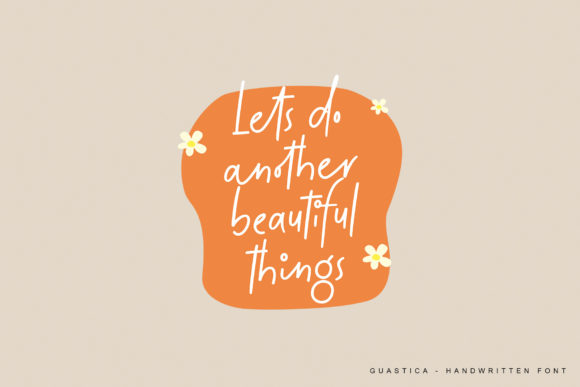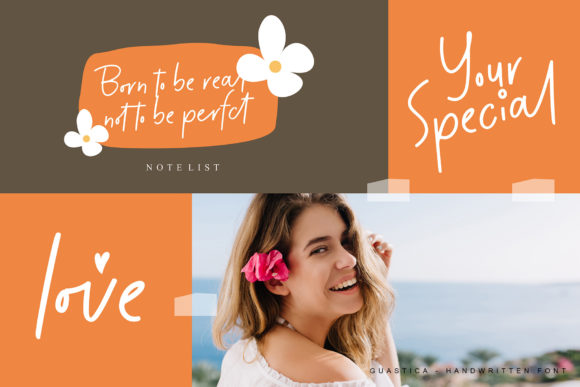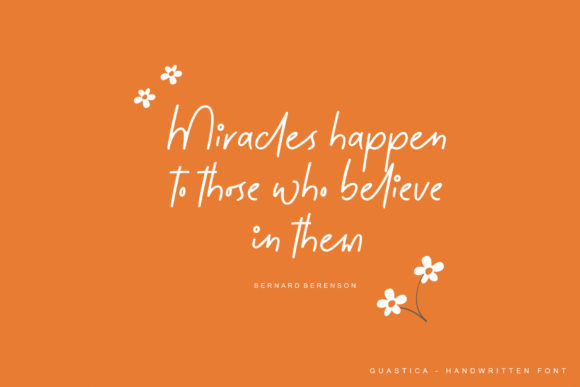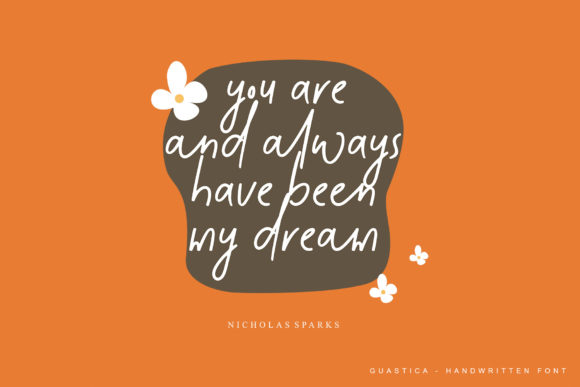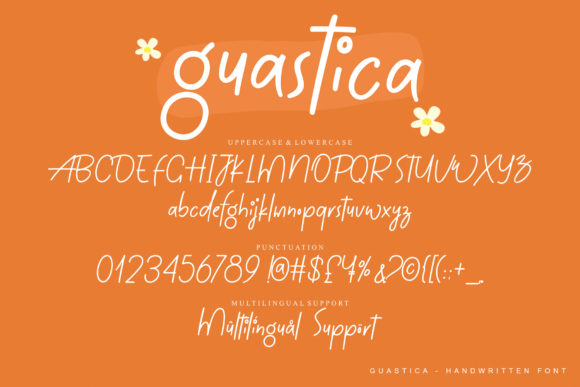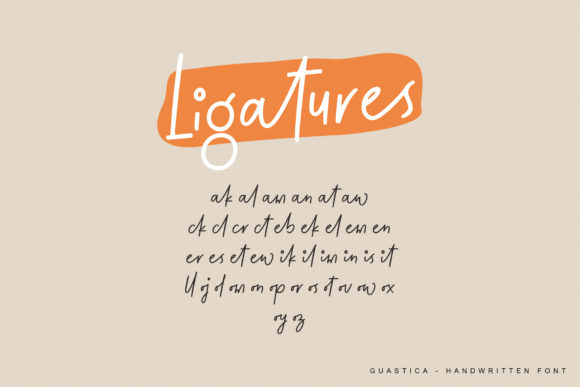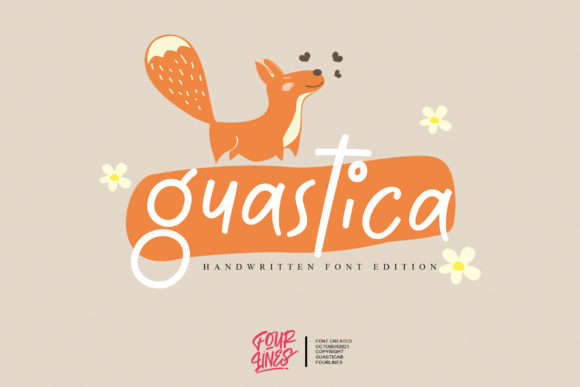
Introducing Guastica Font: A Dazzling and Delicate Script Font
Are you a designer or crafter looking for a unique and elegant font to elevate your creative projects? Look no further than Guastica Font, a stunning script font that is sure to impress. With its delicate and dazzling design, Guastica Font is perfect for a variety of applications, from wedding invitations and stationery to branding and packaging.
What Makes Guastica Font Special?
Guastica Font is a PUA (Private Use Area) encoded font, which means that it offers a wide range of glyphs and swashes that can be easily accessed. This makes it incredibly versatile and user-friendly, allowing you to experiment with different styles and designs with ease. Whether you’re looking to create a romantic and whimsical feel or a more formal and sophisticated look, Guastica Font has got you covered.
Key Features of Guastica Font
- PUA Encoded: Guastica Font is PUA encoded, making it easy to access all glyphs and swashes.
- Delicate and Dazzling Design: Guastica Font features a unique and elegant design that is sure to impress.
- Versatile: Guastica Font can be used for a variety of applications, from wedding invitations and stationery to branding and packaging.
- User-Friendly: Guastica Font is easy to use and comes with a wide range of glyphs and swashes that can be easily accessed.
Why Choose Guastica Font?
There are many reasons why Guastica Font stands out from the crowd. Here are just a few:
- Unique Design: Guastica Font features a unique and elegant design that is sure to make your projects stand out.
- Ease of Use: Guastica Font is PUA encoded, making it easy to access all glyphs and swashes.
- High-Quality: Guastica Font is a high-quality font that is designed to deliver exceptional results.
Tips and Tricks for Getting the Most Out of Guastica Font
Here are a few tips and tricks for getting the most out of Guastica Font:
- Experiment with Different Styles: Guastica Font offers a wide range of glyphs and swashes. Experiment with different styles to find the one that works best for your project.
- Pair with Other Fonts: Guastica Font pairs well with other fonts. Try pairing it with a bold font for a striking contrast.
- Use for Branding: Guastica Font is perfect for branding and packaging. Use it to create a unique and memorable brand identity.
| Font Name | Guastica Font |
| Author | Fourlines.design |
Guastica Font is a dazzling and delicate script font that is sure to impress. With its PUA encoding and wide range of glyphs and swashes, it’s perfect for a variety of applications, from wedding invitations and stationery to branding and packaging. Whether you’re a designer or crafter, Guastica Font is a must-have font that is sure to elevate your creative projects.
- What is Guastica Font?
- Guastica Font is a dazzling and delicate script font that is PUA encoded.
- What is PUA encoding?
- PUA encoding allows for easy access to all glyphs and swashes.
- What can I use Guastica Font for?
- Guastica Font can be used for a variety of applications, from wedding invitations and stationery to branding and packaging.